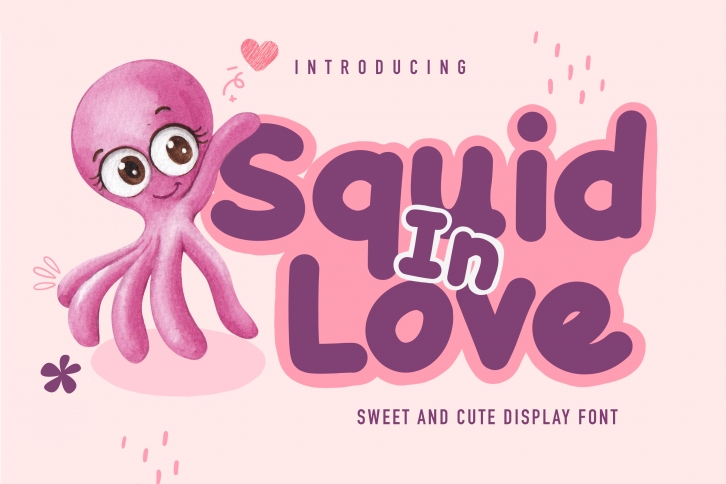
Squid in Love is a cool and fun display font. Whether you’re using it for crafting, digital designing, presentations or greeting cards making, it’s perfect!Â